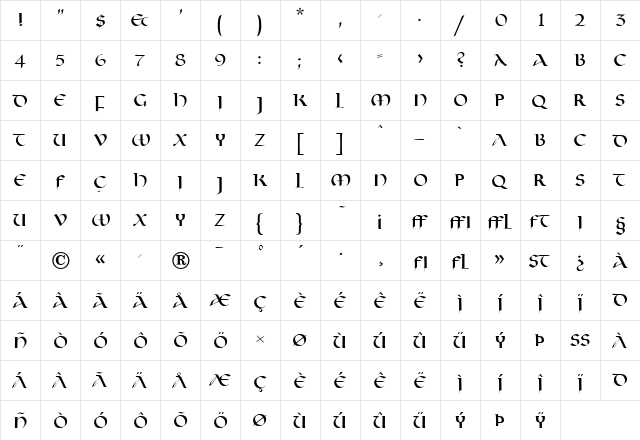
Lukrezia Medium
Design Context for Lukrezia Typeface
Lukrezia is a composed and adaptable typeface that performs quietly and consistently across a wide range of design contexts.